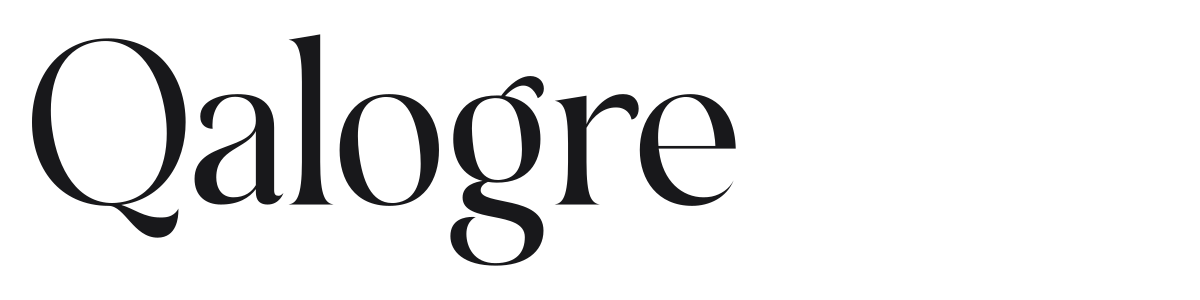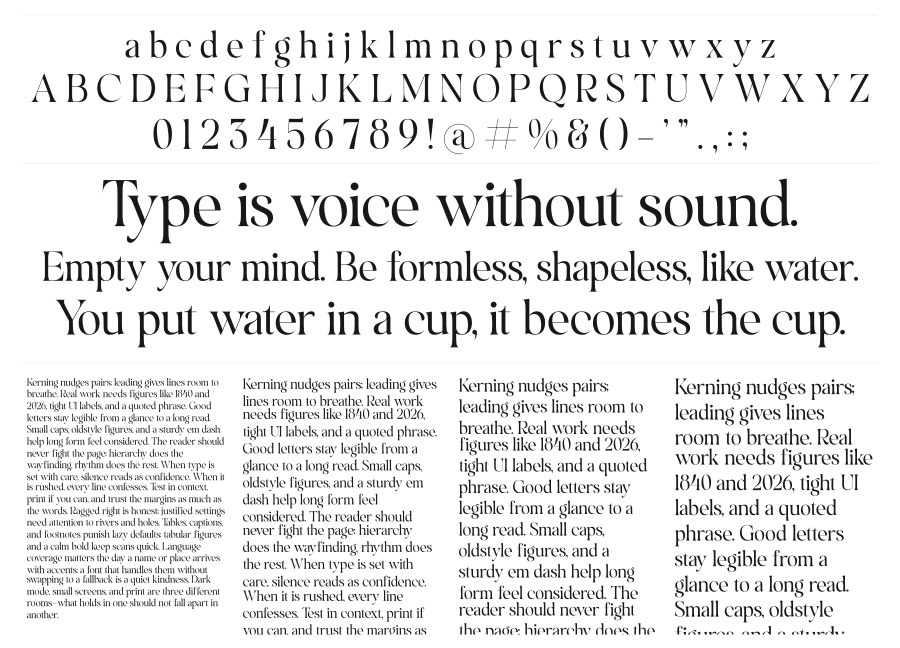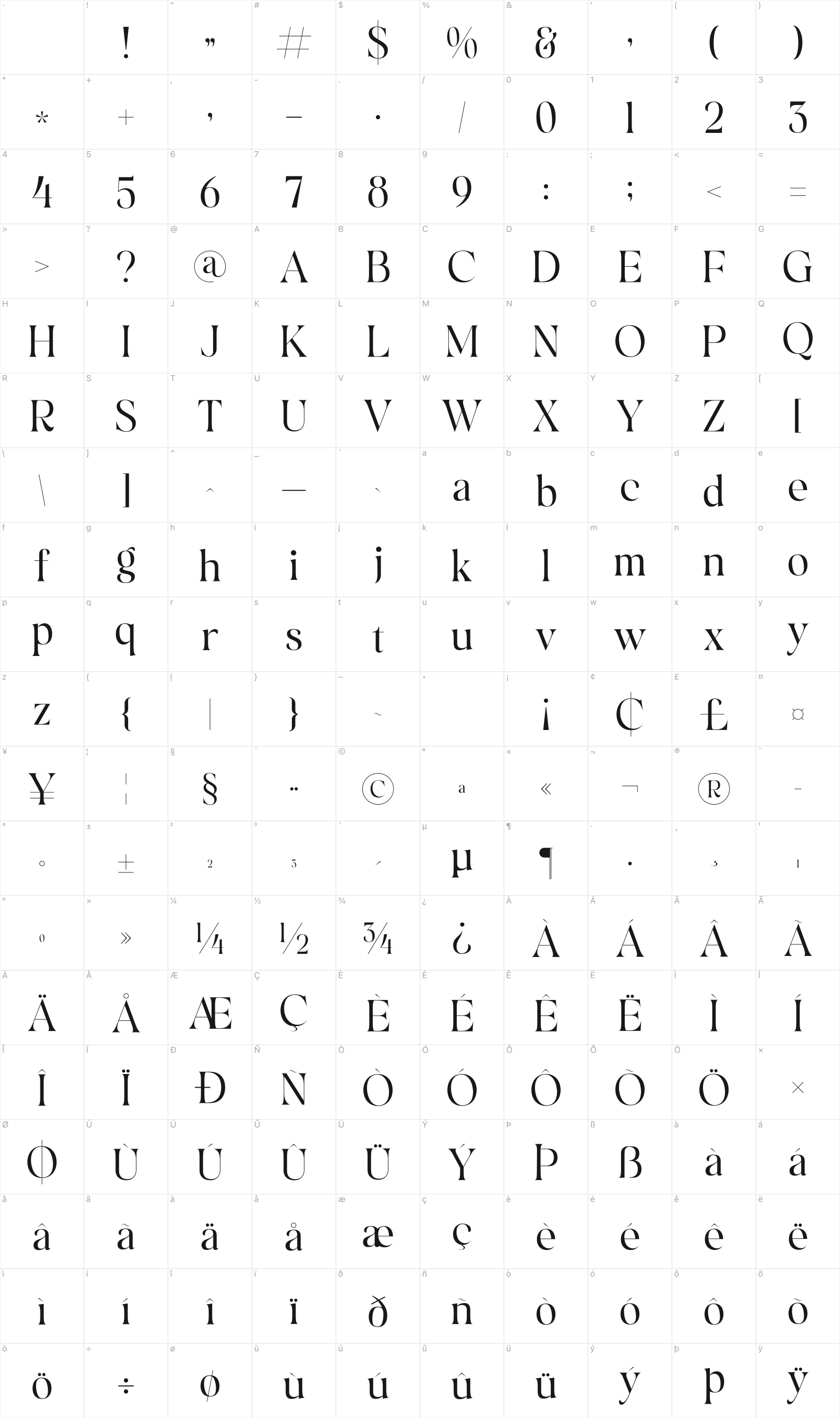
Qalogre
Qalogre is a high-contrast modern serif rooted in the Didone tradition, with dramatic thin hairlines set against strong vertical stems. The proportions are tall and airy, giving it a contemporary editorial quality reminiscent of upscale fashion and beauty publishing. It carries that sharp elegance that works best at large sizes where the contrast can breathe.